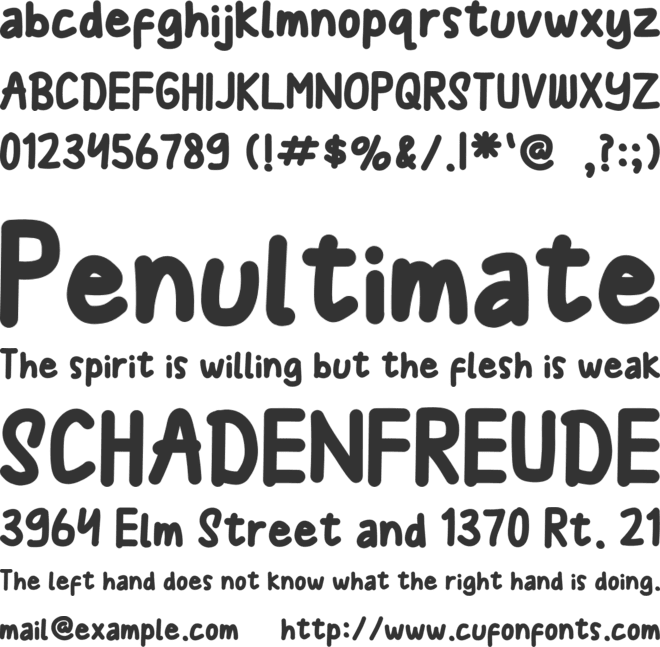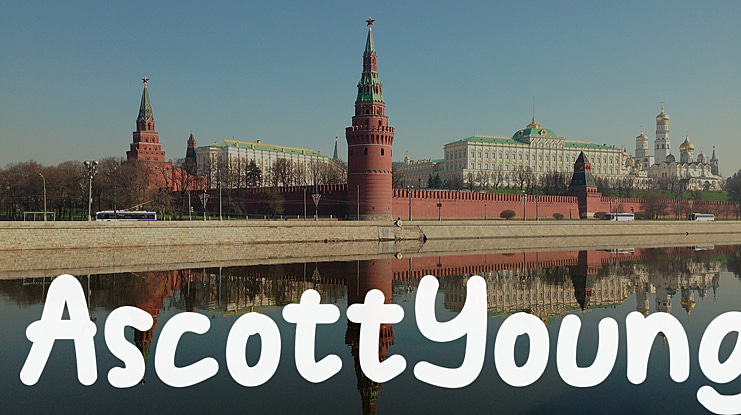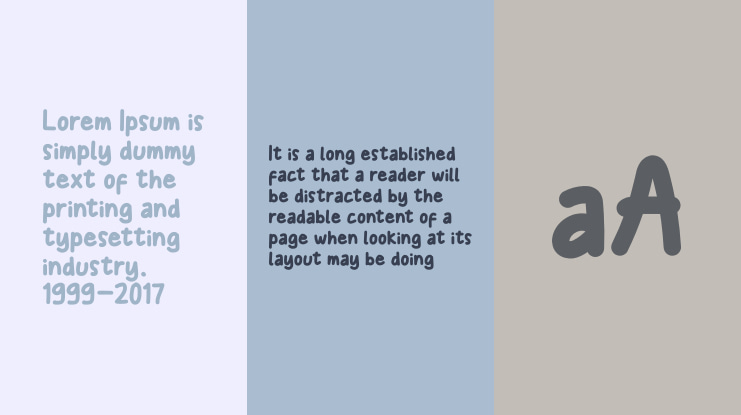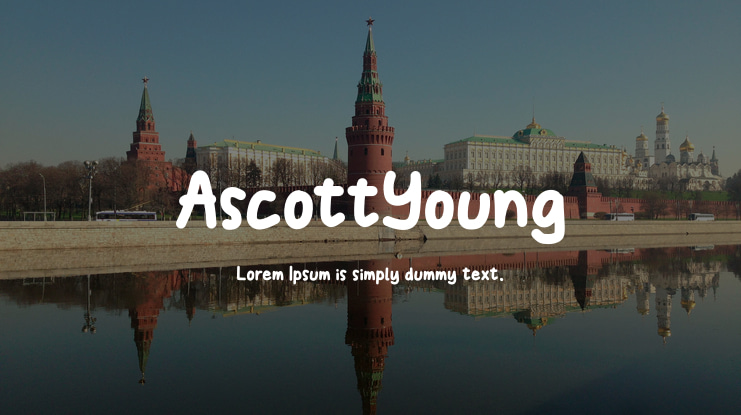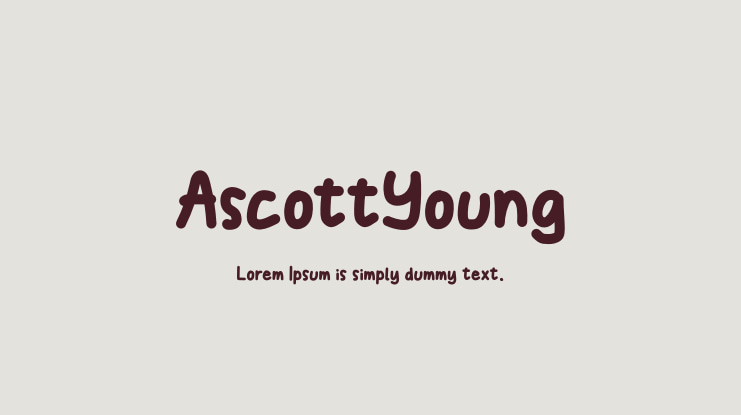
AscottYoung Font
Ascott Young Font
Ascott Young Font is a Cute and Minimalist Display Font that's really cheerful theme for your fun project.
Simple and easy to use, this font will be very beautiful if you mix it with your various craft designs.